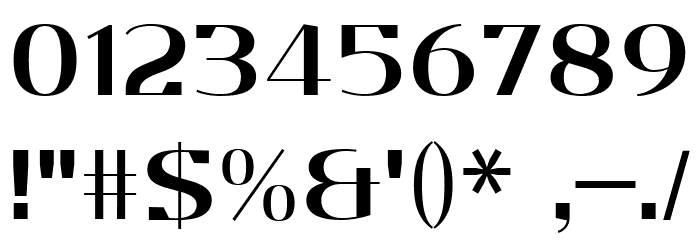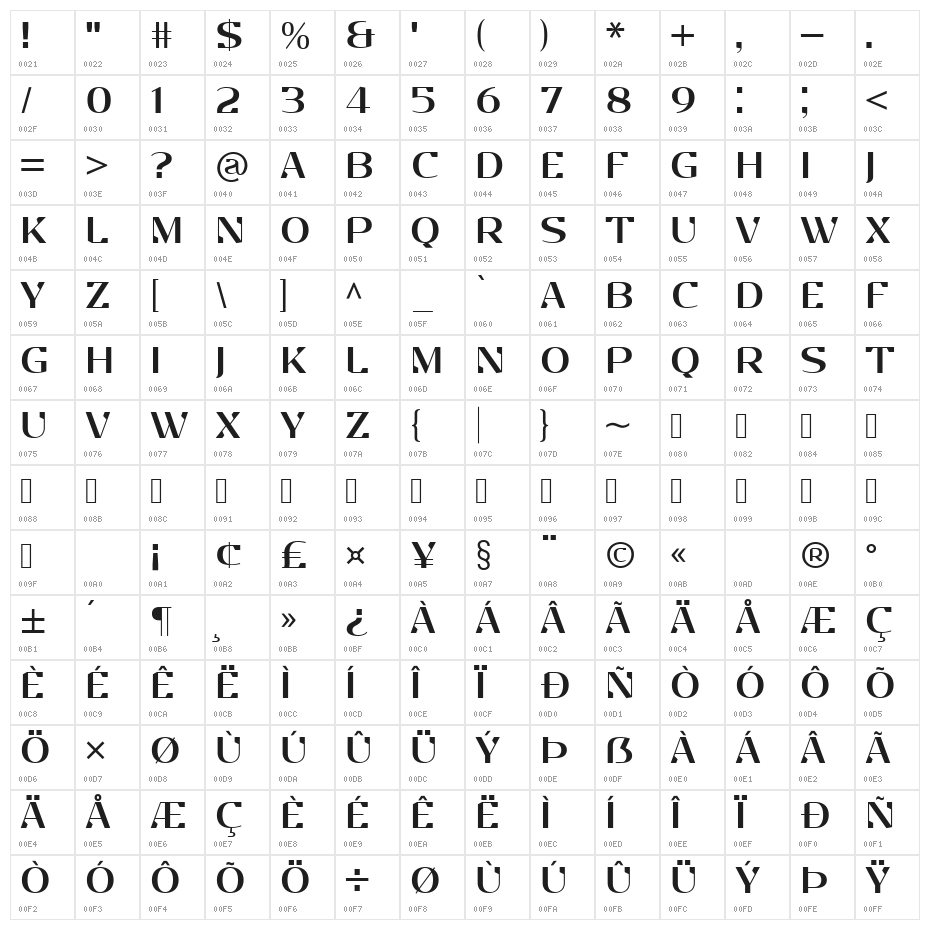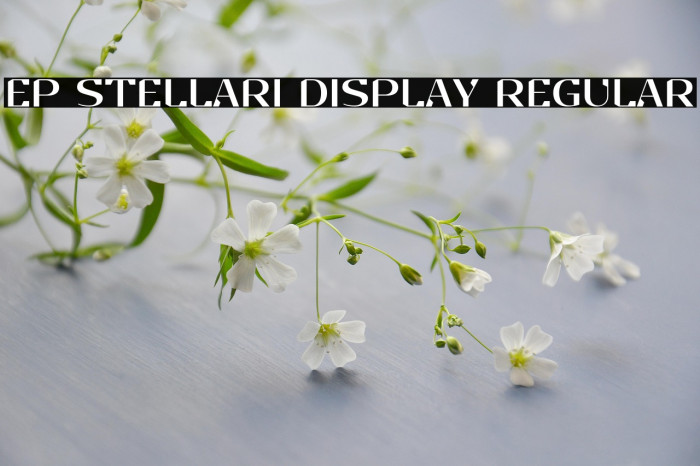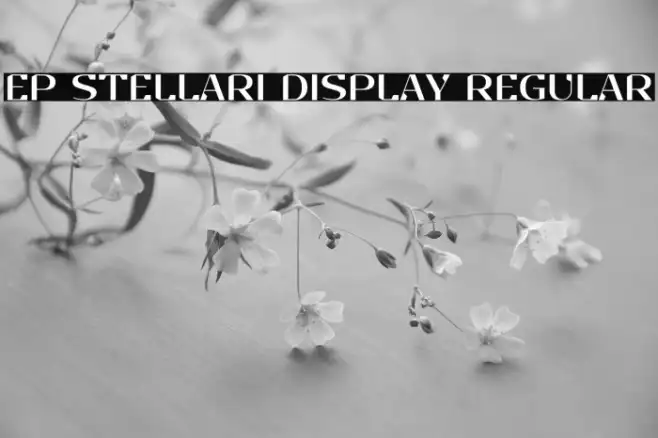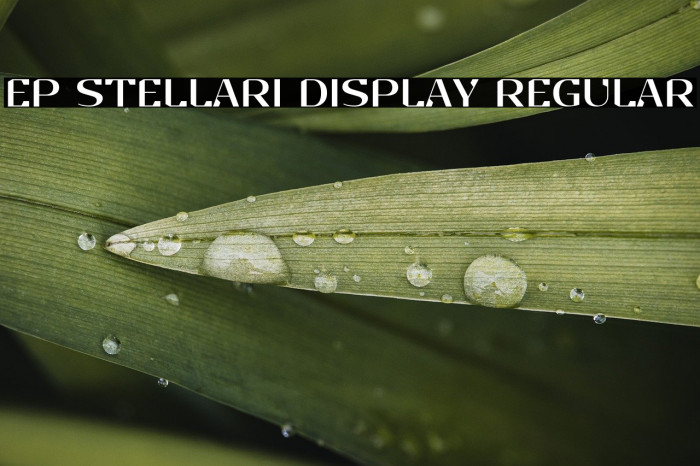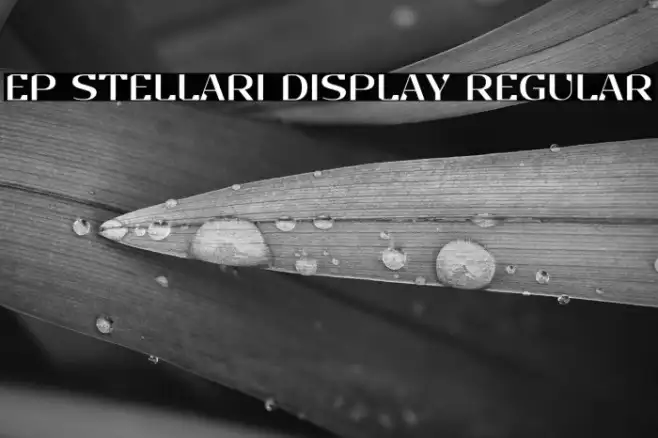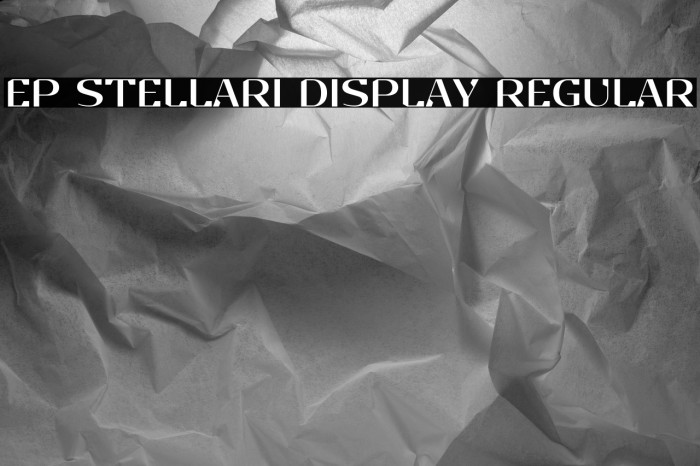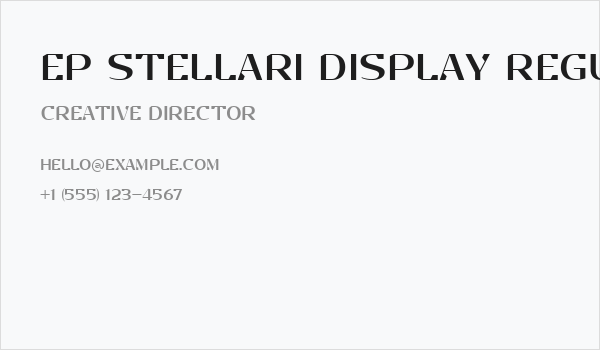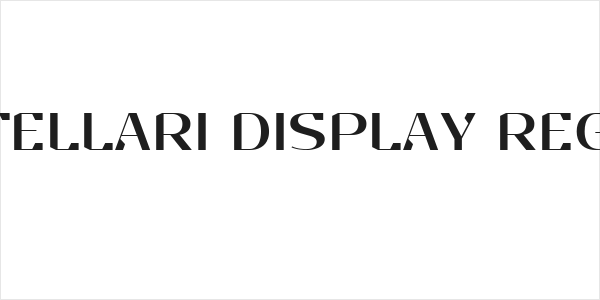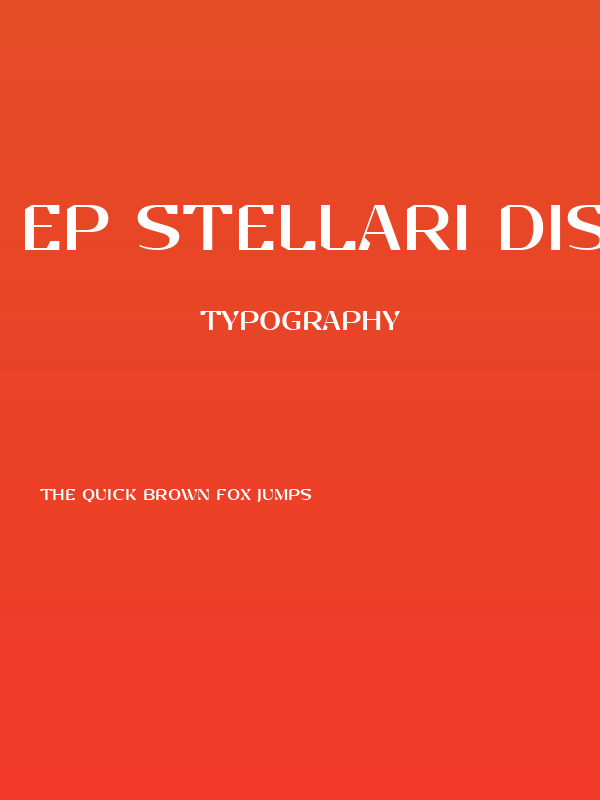
EP Stellari Display Regular Font
EP Stellari Display Regular Description
This font features a bold and striking design with a modern flair. The characters exhibit a unique blend of sharp angles and smooth curves, creating a dynamic and eye-catching appearance. The uppercase letters are particularly distinctive, with some characters having a slightly futuristic look. The numerals are equally bold, maintaining the font's overall aesthetic. Special characters are designed with the same attention to detail, ensuring consistency throughout. This font is perfect for making a statement in any design project.
| Proposed Projects | This font is well-suited for branding, advertising, posters, and any project that requires a bold, modern look. |